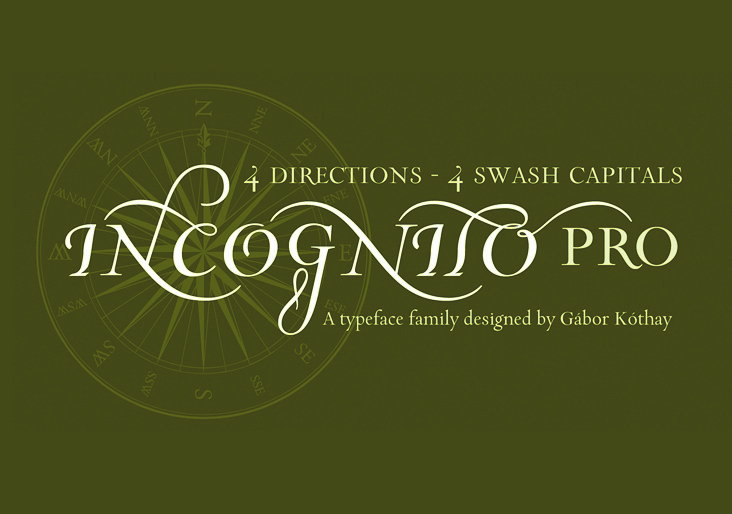
Incognito Pro Font Family
Welcome the new day with a great display font. Introducing Incognito Pro Font Family. Working on the Incognito typeface was a typographic – and topographic – journey into his Hungarian past and the folklore and history of another time. The inspiration for the names for the Incognito family come from map titles and captions. Specifically, the names for the swash variations come from the Latin terms for the points of a compass.